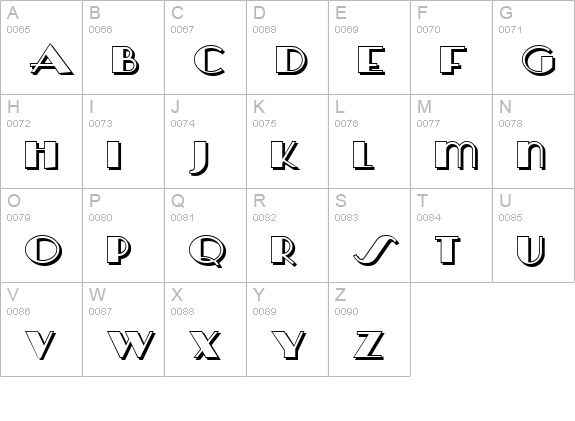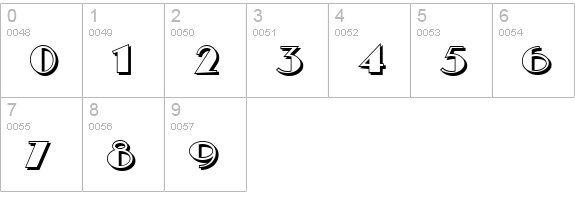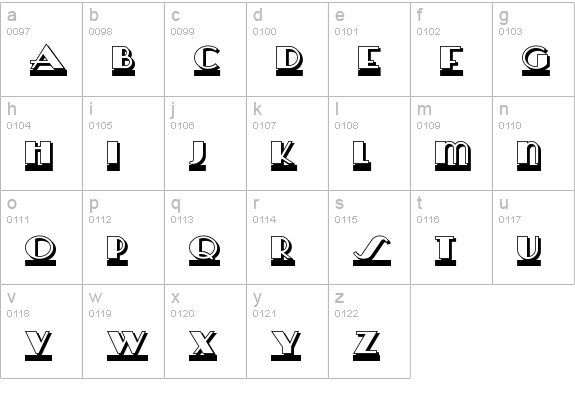
Herald Square Two NF is an elegant and modern display font that exudes sophistication and style. With its clean lines and sharp edges, this font is perfect for adding a touch of class to any design project. Whether you're creating a logo, poster, or website, Herald Square Two NF will make your text stand out and grab attention. What sets Herald Square Two NF apart is not just its sleek design, but also the fact that it is completely free to download. That's right, you can access this premium font at no cost at FontsMarket.com. Don't miss out on the opportunity to enhance your creations with this beautiful typeface that will elevate your work to the next level. Download Herald Square Two NF today and let your creativity shine!